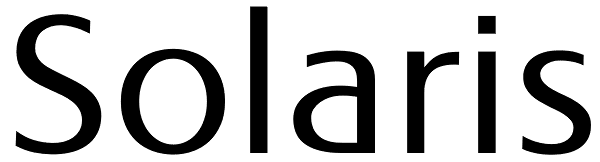
Solaris
Solaris is a sans serif or a grotesque as we still call it where I come from. (it is an old term which means strange compared with Roman which was the normal font) The face is an open sans, which means that the round signs take the air into the...
Solaris
Solaris Medium